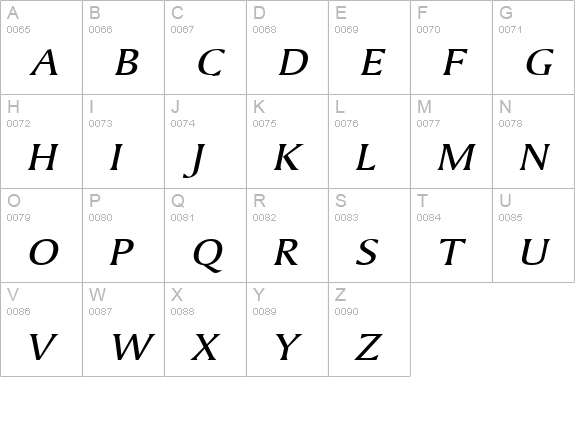
Ameretto Wide Italic is a distinctive, extended-width, italic variant in the Ameretto typeface family \xE2\x80\x94 well suited to design and typography projects.
Ameretto Wide Italic font is a versatile and elegant typeface that combines modern sophistication with a touch of classic charm. Its unique italic style adds a dynamic and stylish flair to any design project. The wide proportions of the characters make it perfect for headlines, titles, and branding materials, ensuring that your text stands out with a bold and impactful presence. This font is not only visually appealing but also highly readable, making it suitable for a wide range of applications such as print materials, web design, packaging, and more. Whether you're looking to create a sleek and contemporary look or a more traditional and refined aesthetic, Ameretto Wide Italic font has you covered. Best of all, this font is available for free download at FontsMarket.com, making it accessible to designers and creatives of all levels. Don't miss out on the opportunity to elevate your projects with the stylish and versatile Ameretto Wide Italic font!